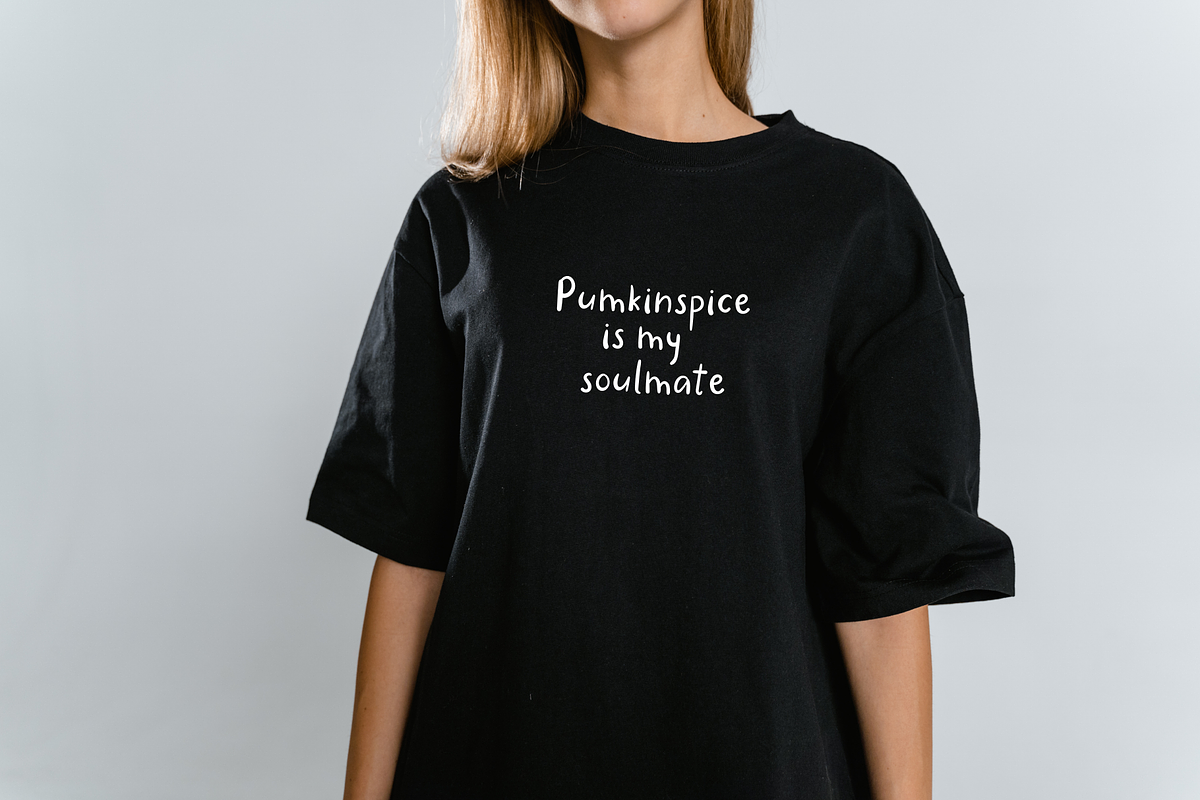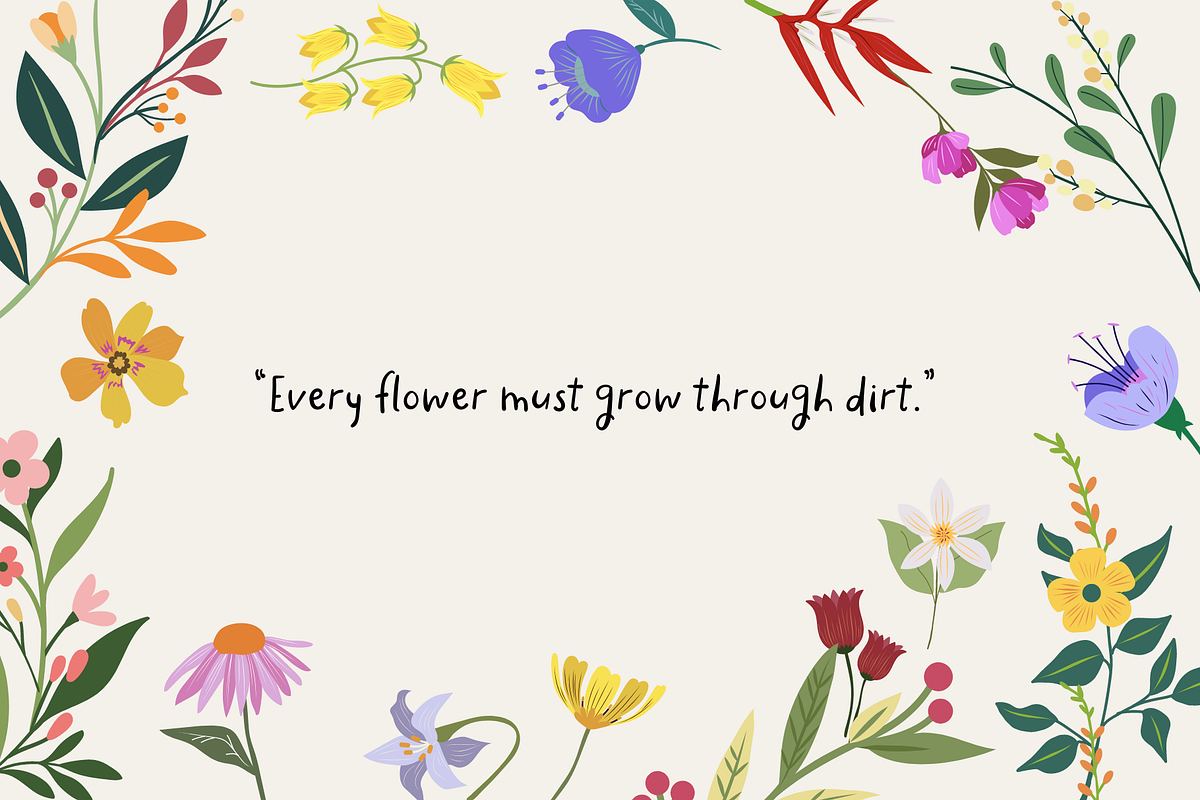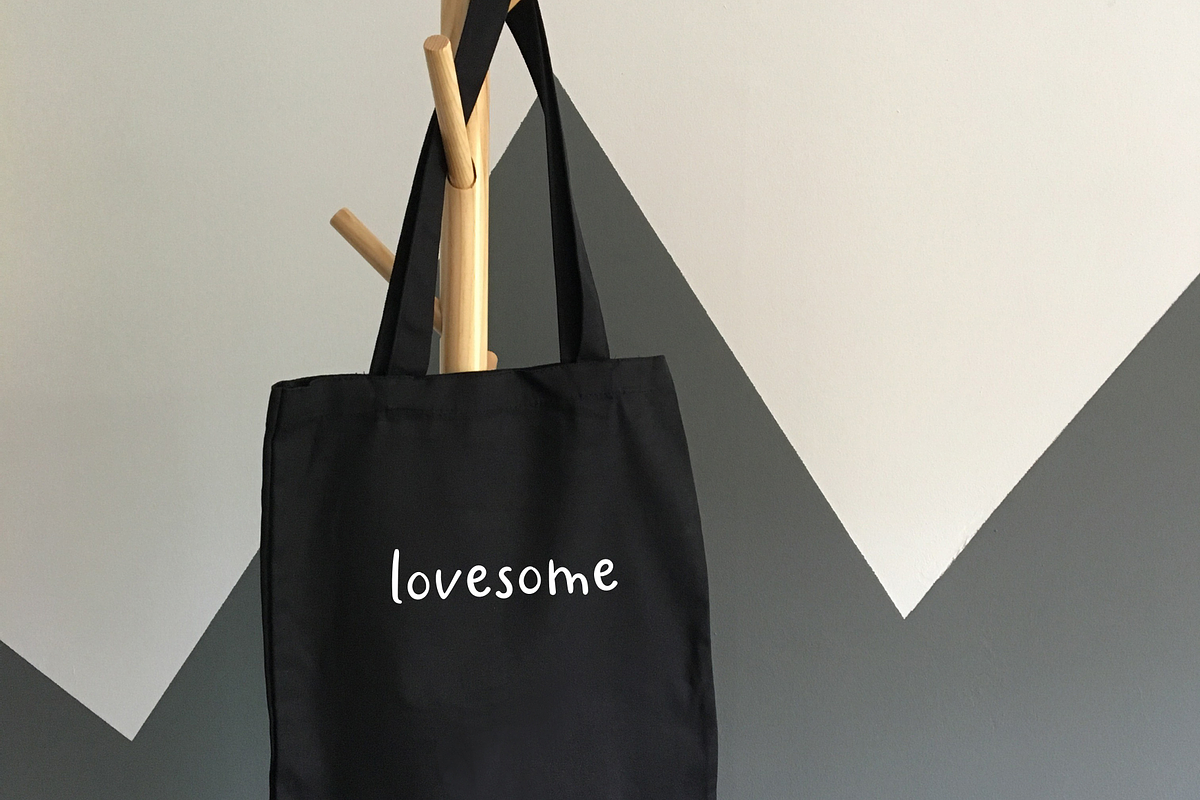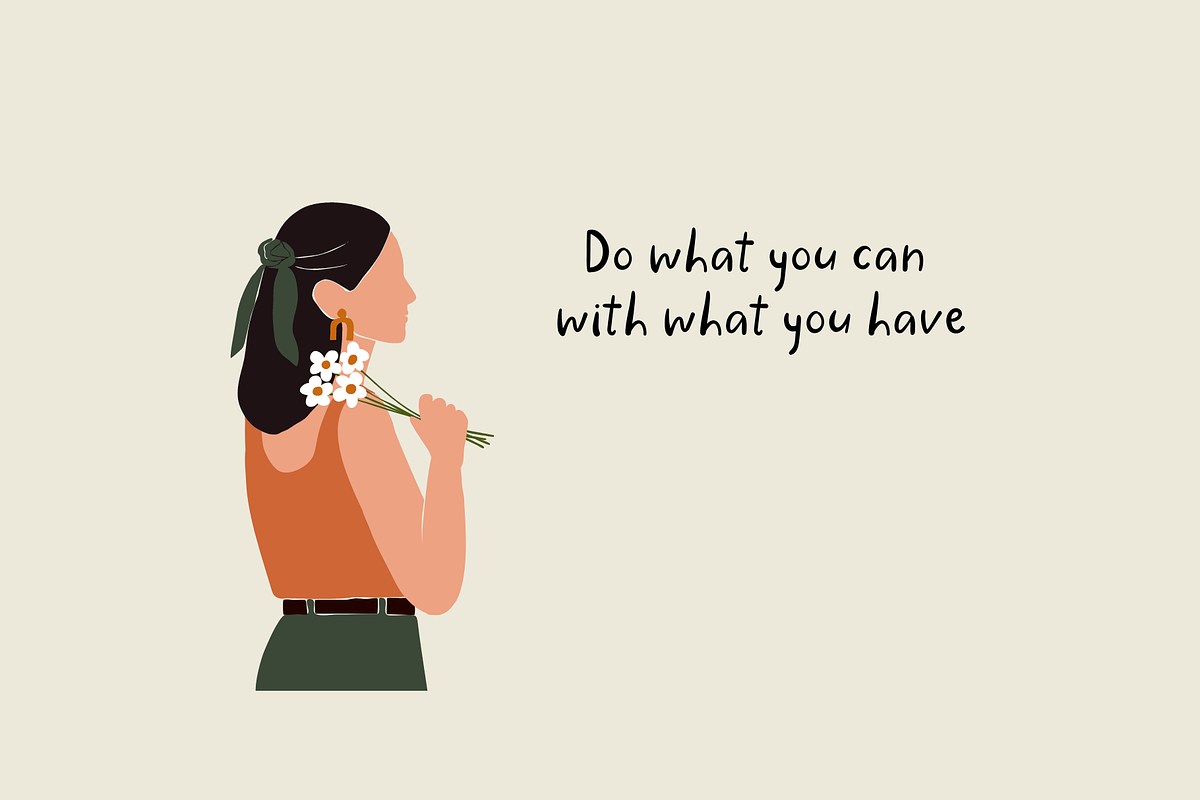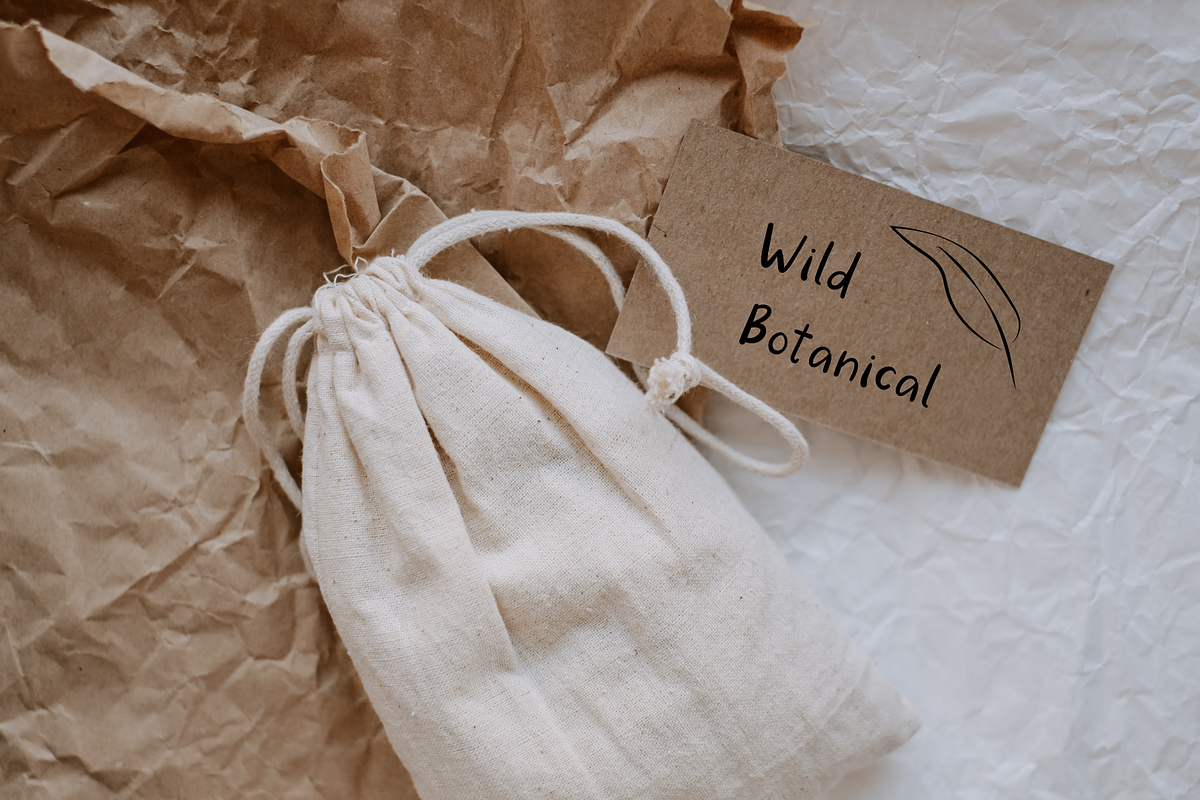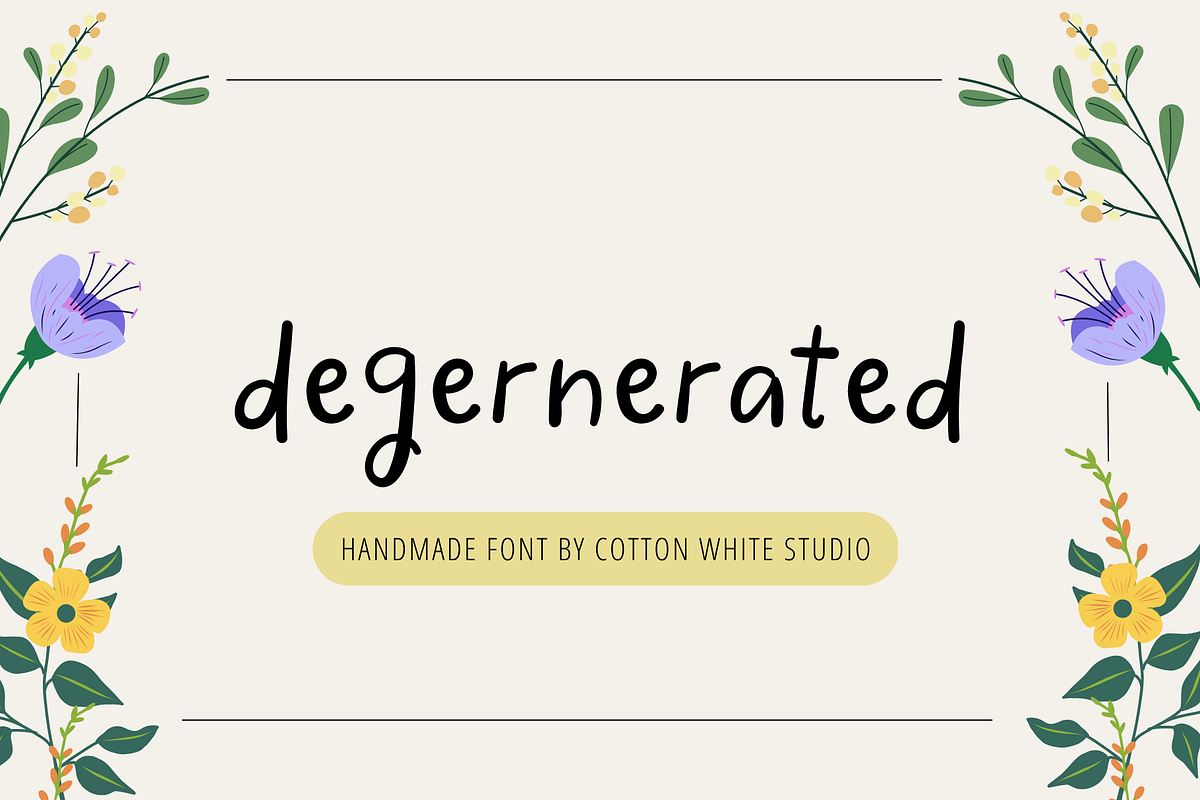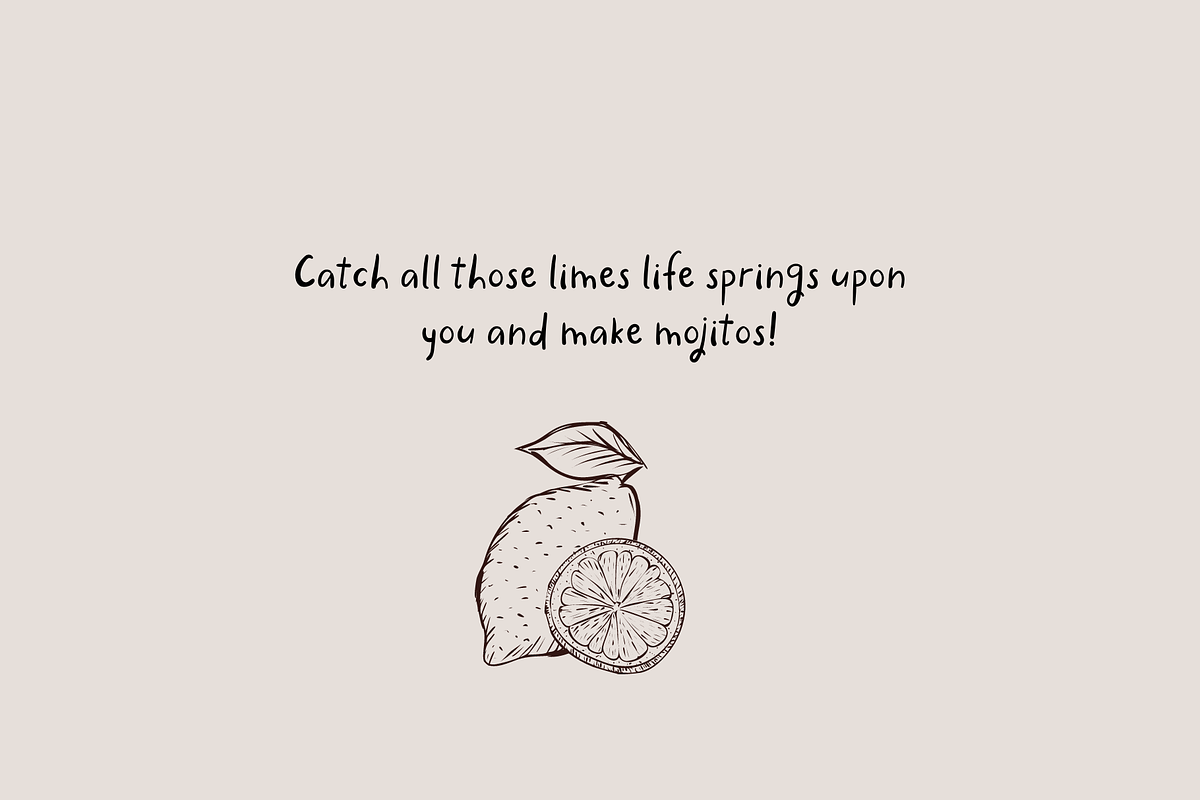
Degenerated
Add some sweetness to your designs with this adorable font! It's perfect for any project that needs a touch of whimsy and charm. From greeting cards and invitations to social media graphics and branding materials, our cute font will bring a playful energy to your work. This font is also prefect to spice up your digital notes! With its playful curves and delightful details, this font is sure to make your designs stand out.